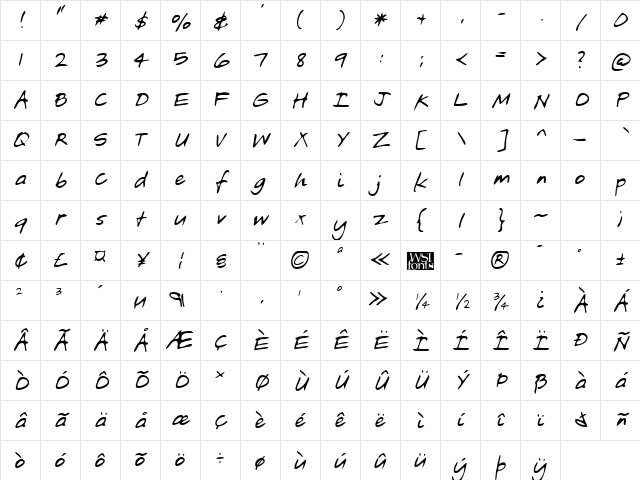
JoshsHand Regular
Design Context for JoshsHand
JoshsHand flows with the natural rhythm of handwritten lettering, making it ideal for designs that call for warmth and personal expression.
Font Pairing: Combine JoshsHand with a simple geometric sans for maximum contrast - the tension between flowing curves and clean structure is a classic typographic pairing.
Pro Tip: Use JoshsHand for short runs of text - names, titles, or taglines. Extended body copy in script faces tires the eye quickly.